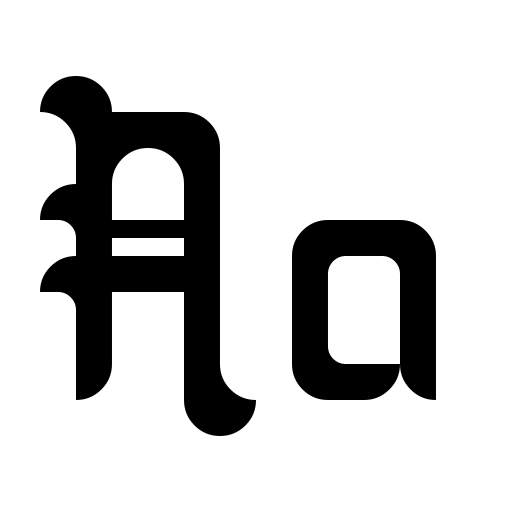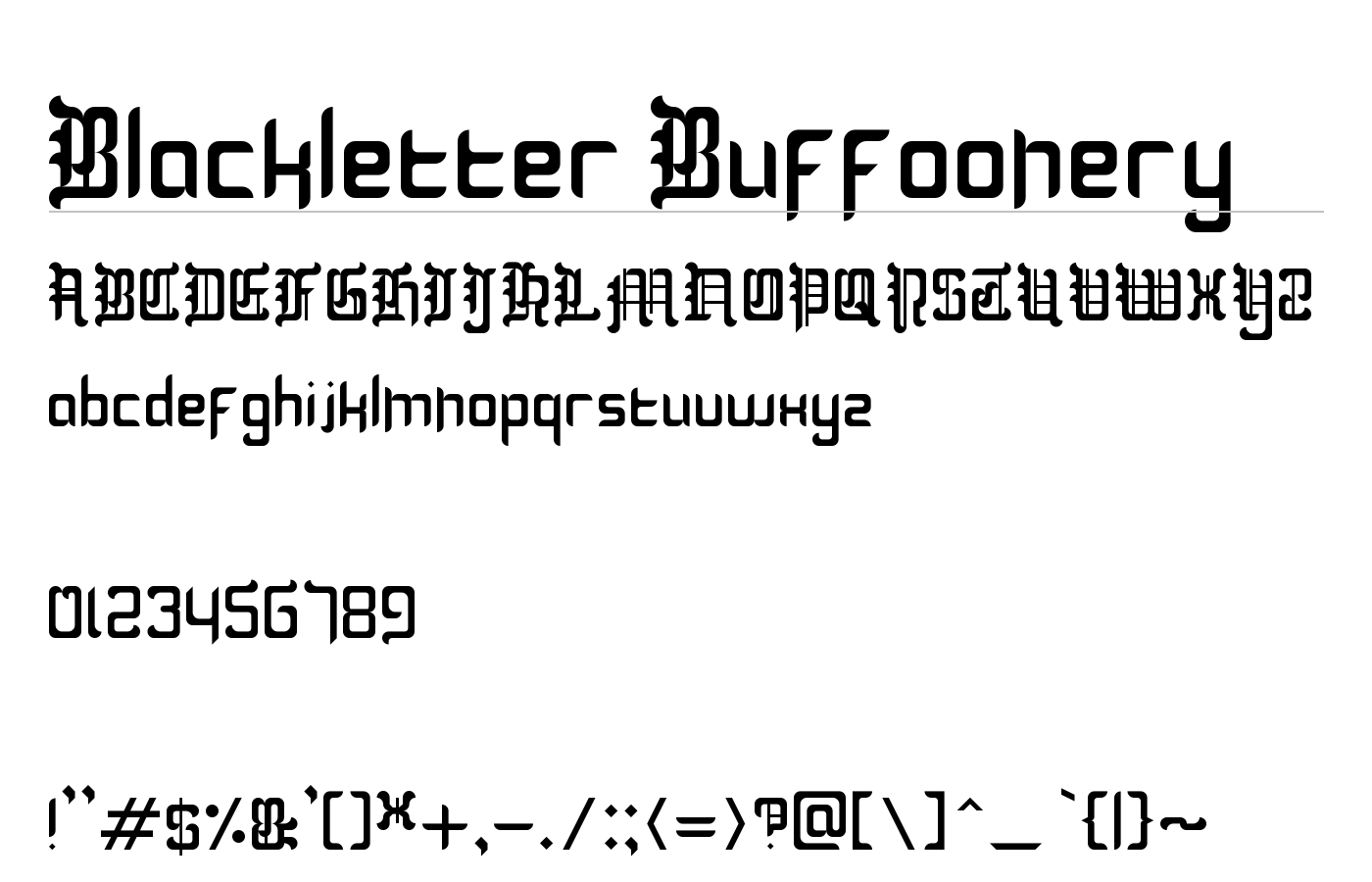
Blackletter Buffoonery is a unique hybrid font blending gothic blackletter uppercase with modern, geometric sans serif lowercase characters, offering a strong contrast between ornate and minimal styles. The font’s medium weight and condensed width give it a distinct, edgy appearance with sharp, angular lines and decorative strokes, creating a playful yet bold personality ideal for eye-catching headlines, posters, and branding that seeks a mix of tradition and contemporary flair. This font works well where dramatic impact matters, especially in creative, alternative, or vintage-inspired designs.
Blackletter Buffoonery Font
About Blackletter Buffoonery Font